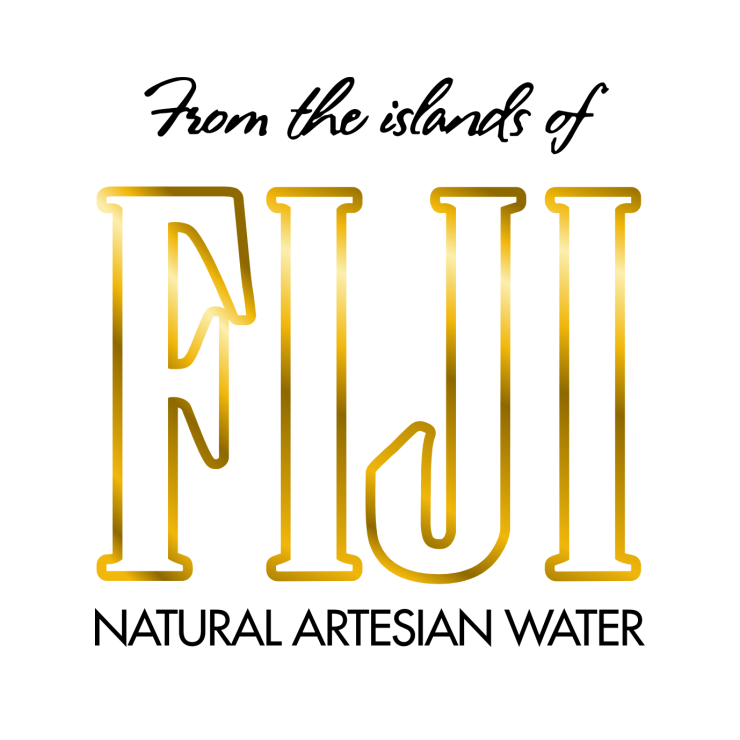
Fiji Water Font
Fonts in UseFiji Water is a premium bottled water brand that originates from the Yaqara Valley of Viti Levu, Fiji. It is known for its high quality and unique mineral composition.
The brand name "FIJI" is written in a condensed serif font called Runic. The script resembles the Stephanie Marie font by Jason Walcott. The accompanying sans-serif font is Futura by Paul Renner, and Gotham by Tobias Frere-Jones is used on the brand's website.